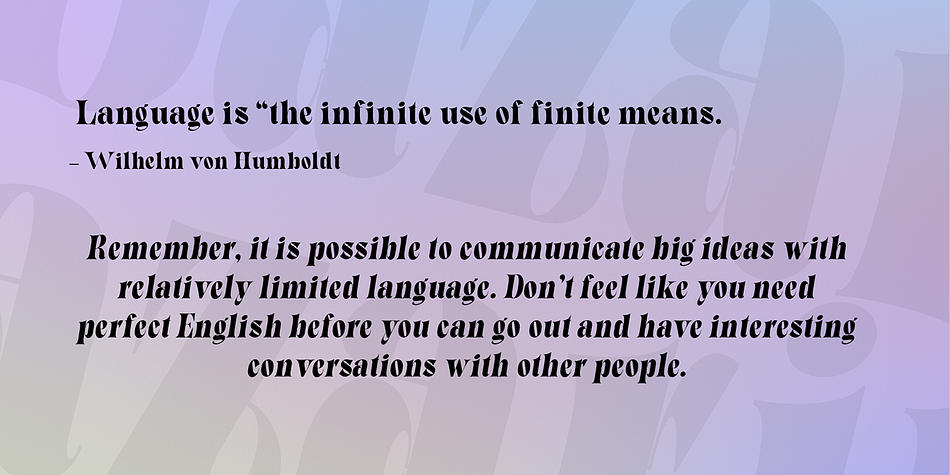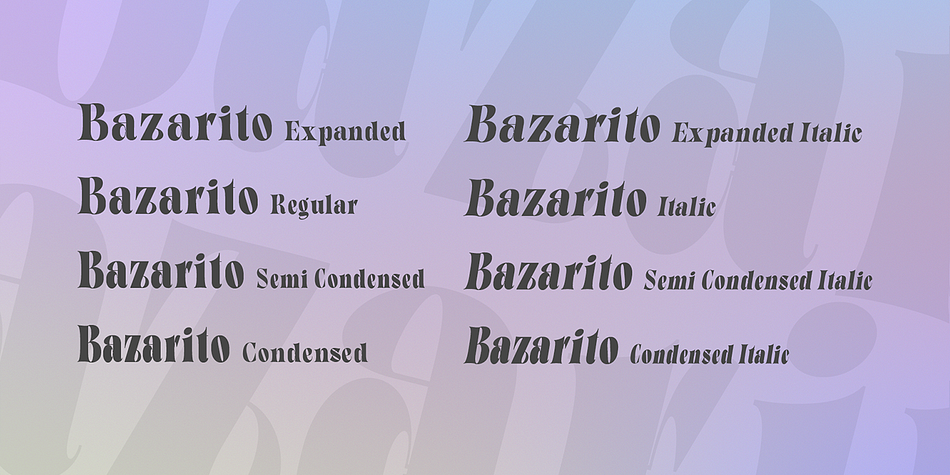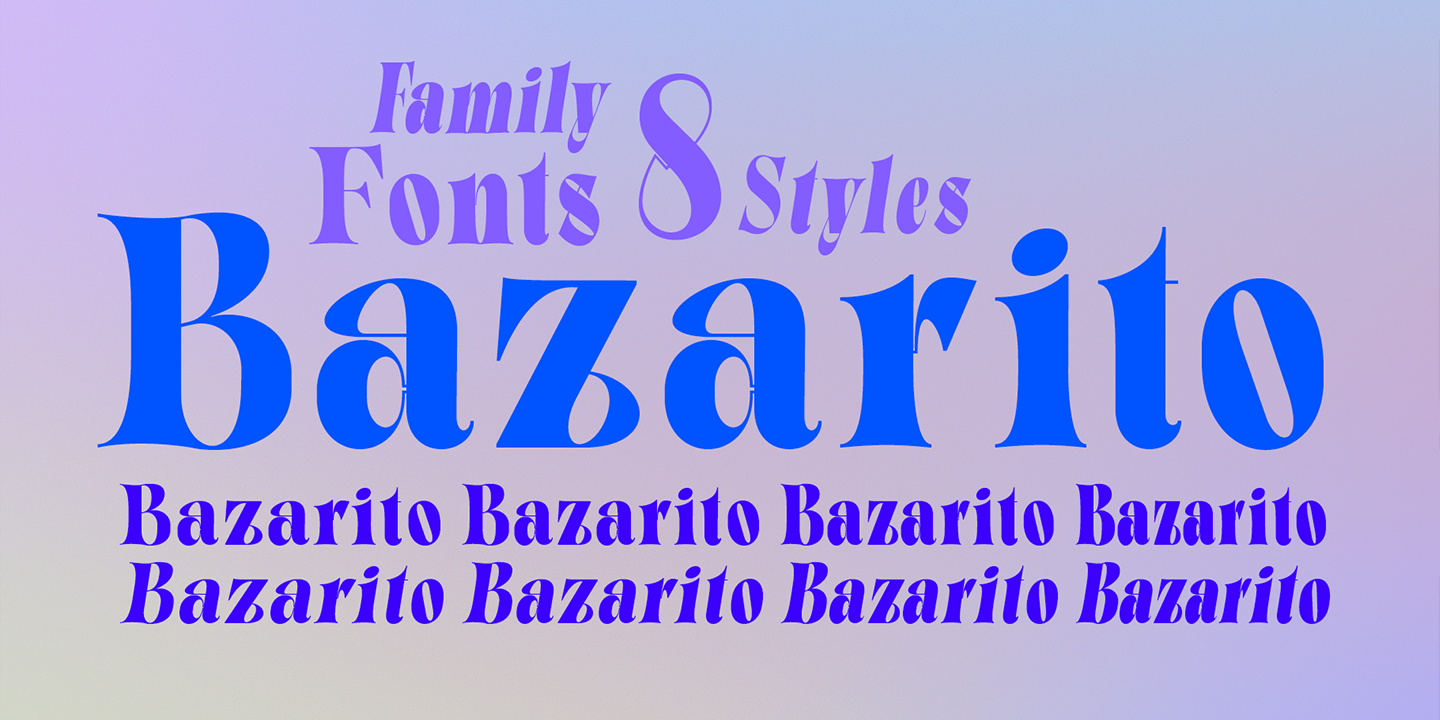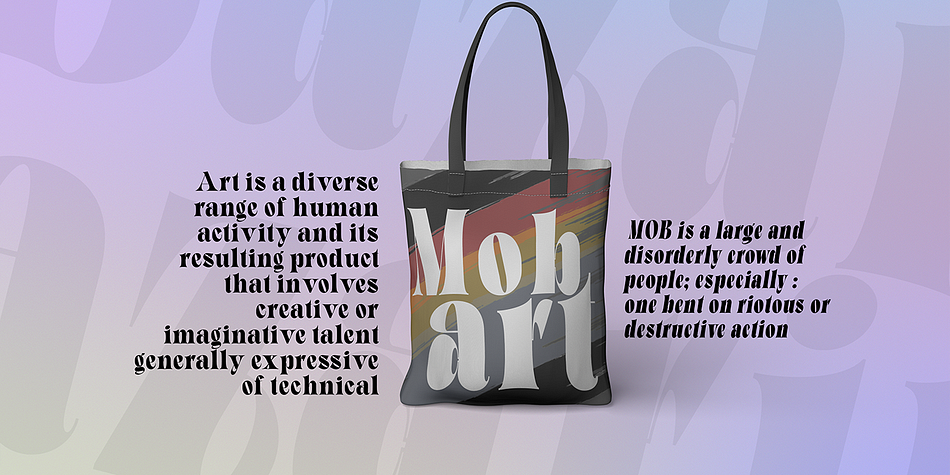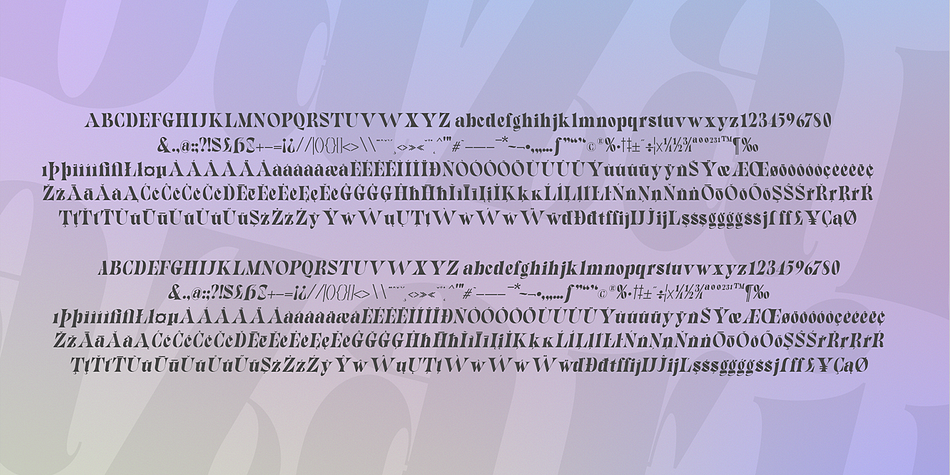
Bazaruto Family
Designed by Roiyani Teungku, Bazaruto Family is a display serif font family. This typeface has eight styles and was published by Groens.
**Bazaruto** is a font family that has 8 variations, divided into normal and italic styles.
The Bazaruto font is a unique serif font, because it has a tip that reflects Japanese style or character.
Multilingual support for various languages including: French, German, Spanish, Portuguese, Italian, Dutch, Finnish, Swedish, and more.